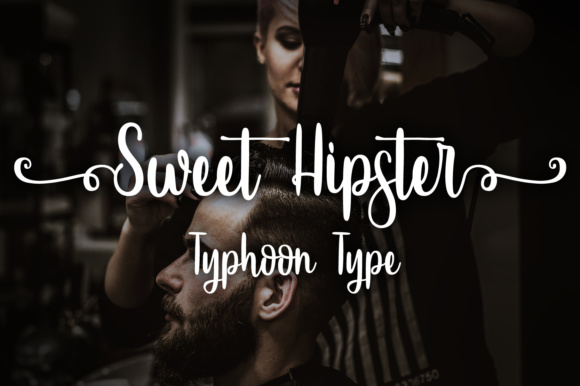
Sweet Hipster is a pretty, well-weighted display font with some swashiness. This font is a well constructed script font that looks great in modern designs.